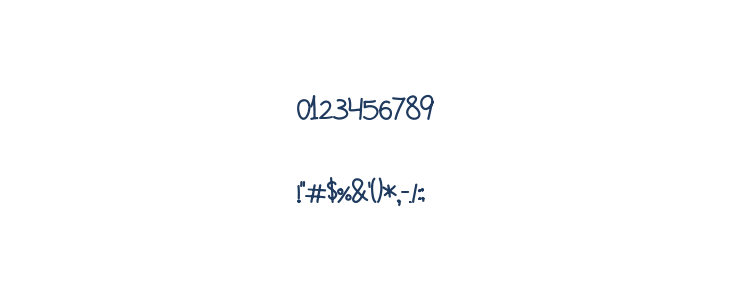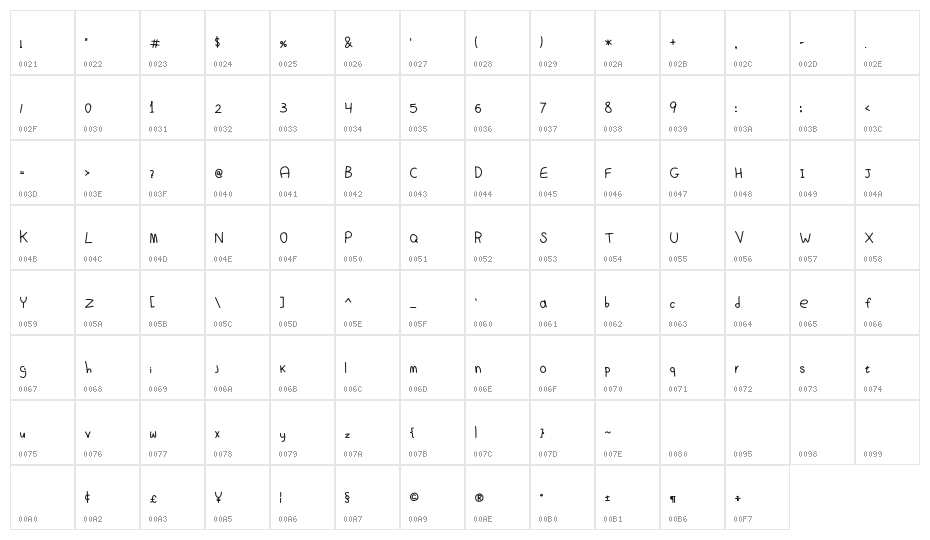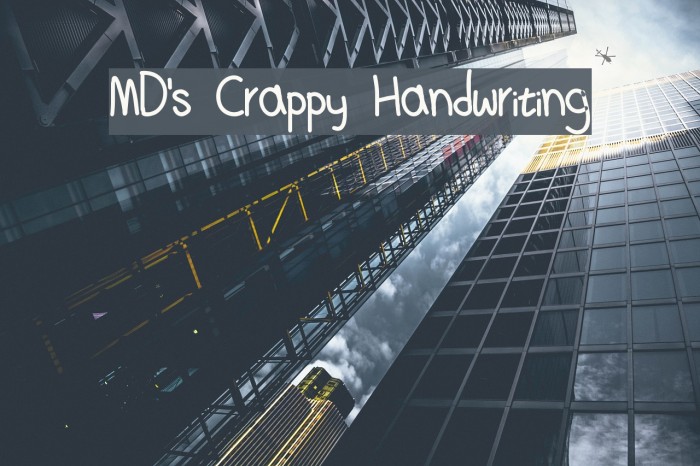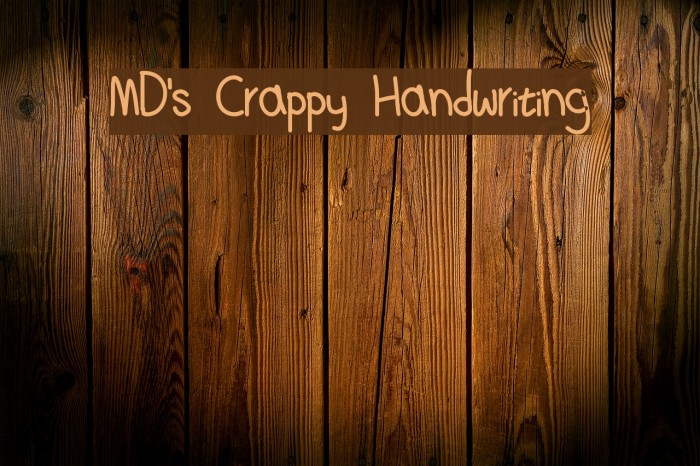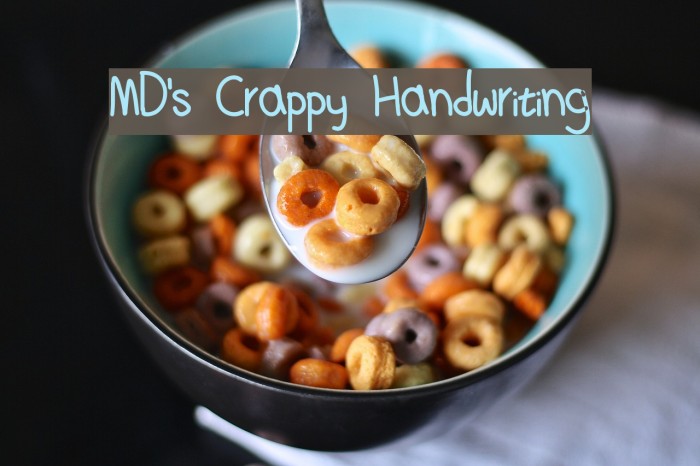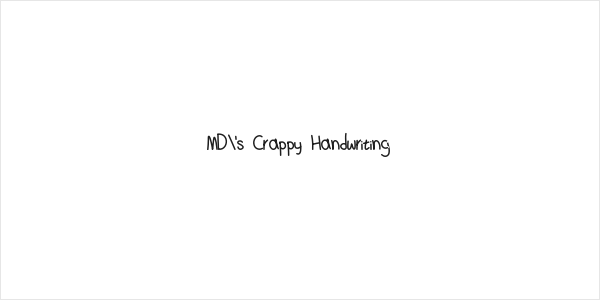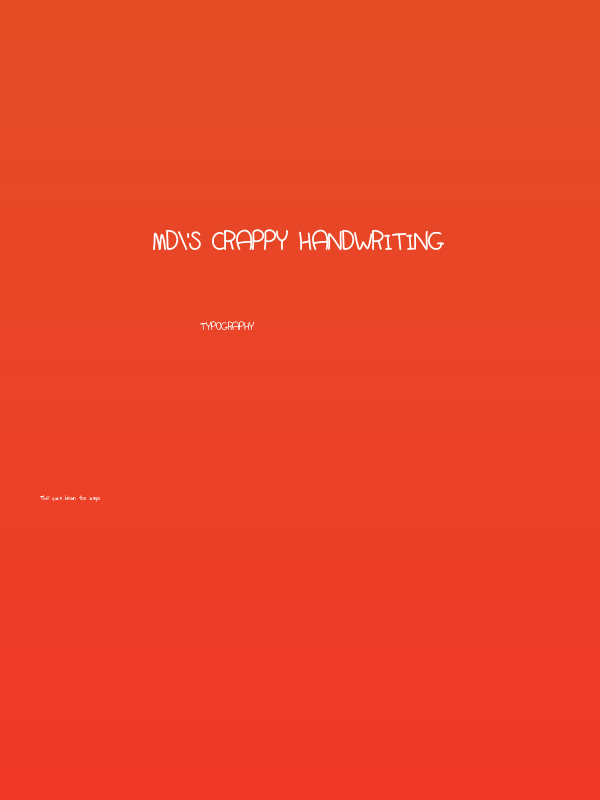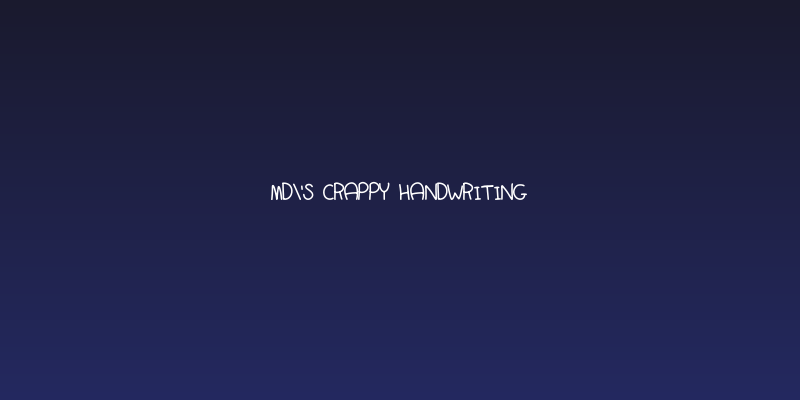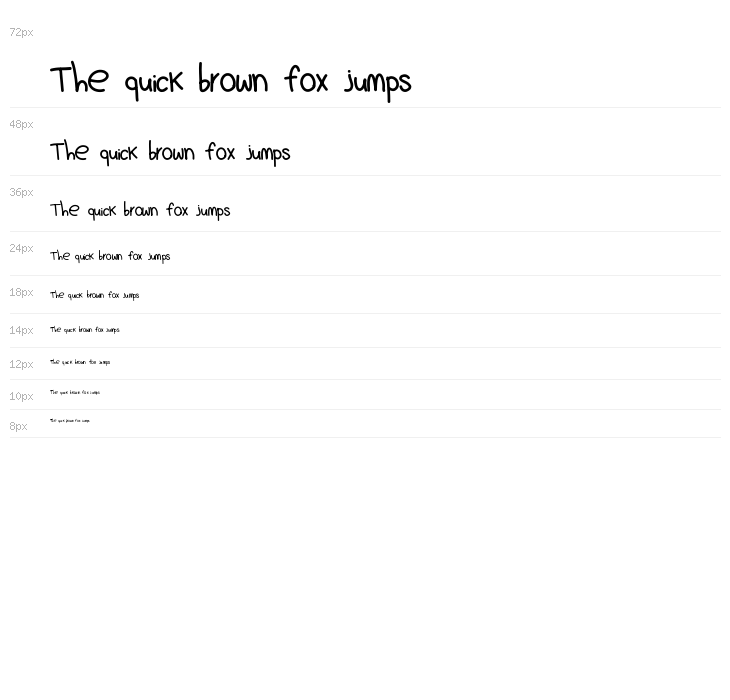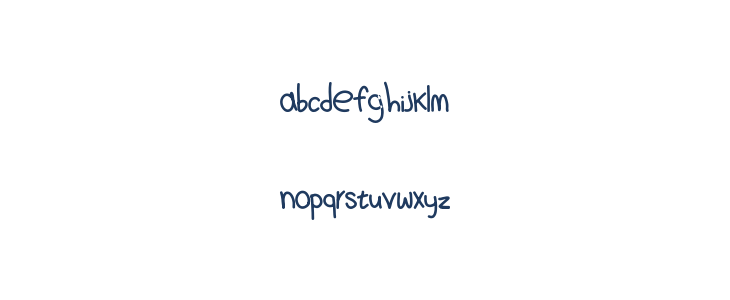
MD's Crappy Handwriting Font
MD's Crappy Handwriting Description
This font features a playful and informal handwritten style, characterized by its uneven letterforms and casual appearance. The strokes are slightly irregular, giving it a personal and authentic feel, reminiscent of a quick note jotted down on paper. The uppercase and lowercase letters maintain a consistent flow, while the numbers and special characters complement the overall aesthetic. Its quirky and relaxed vibe makes it suitable for projects that aim to convey a sense of friendliness and approachability.
| Proposed Projects | Ideal for greeting cards, children's books, casual invitations, and personal blogs. |